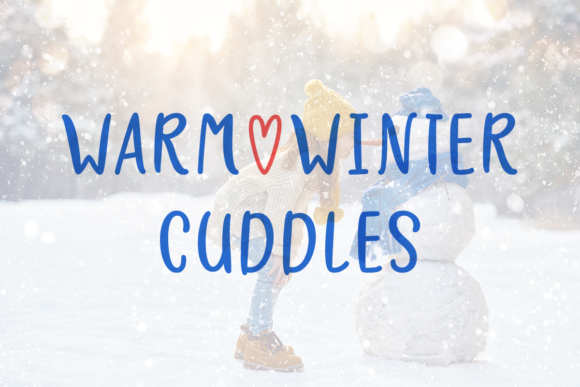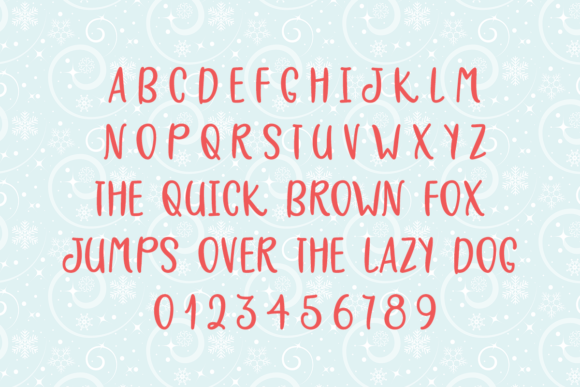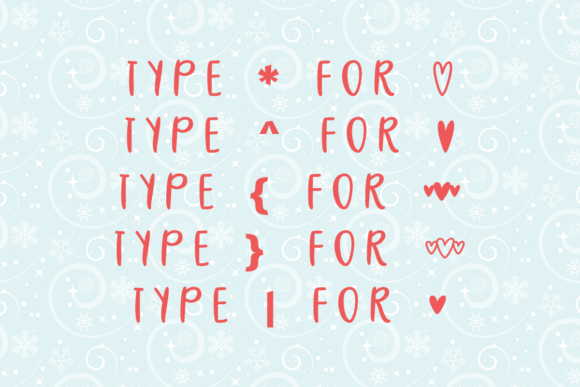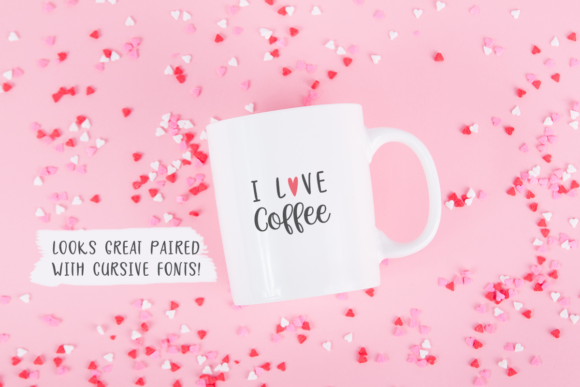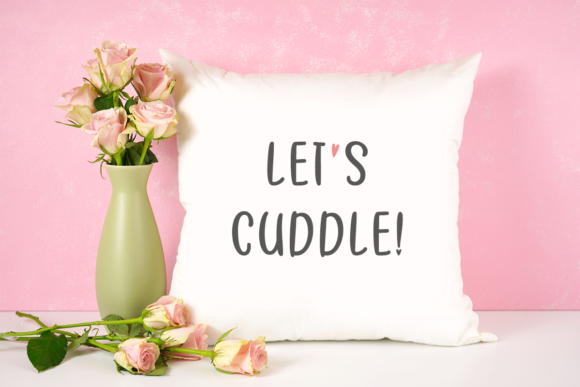
About Warm Winter Cuddles Font
Warm Winter Cuddles is a charming, all-caps typeface. It is a great choice for adding cute quotes on mugs, prints, home décor, greeting cards and anything you can imagine. Included are adorable heart symbols that are perfect for adding to your Valentine’s Day projects.